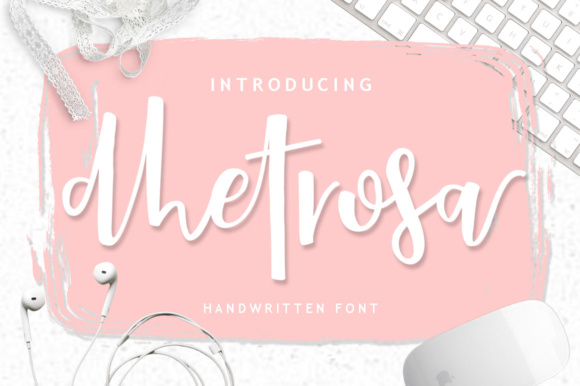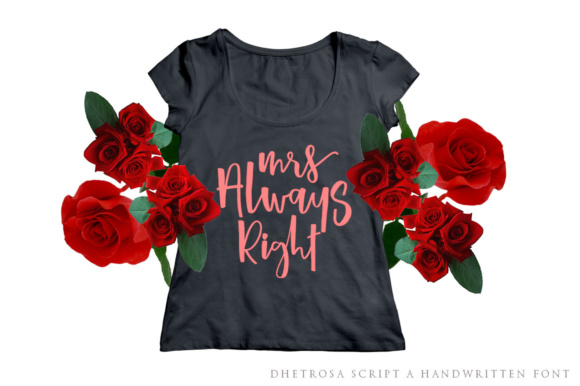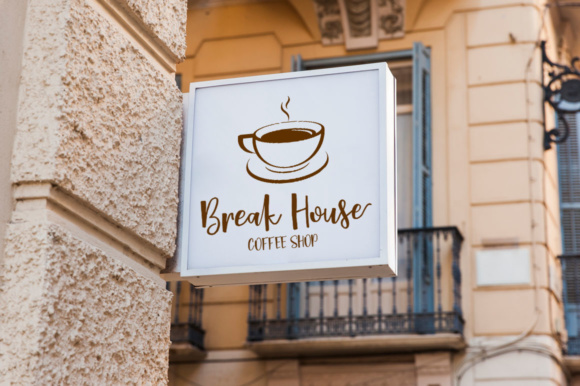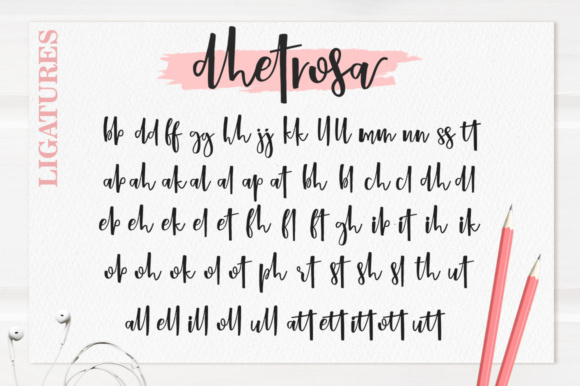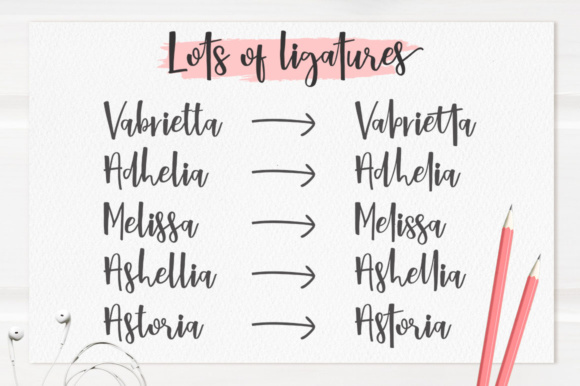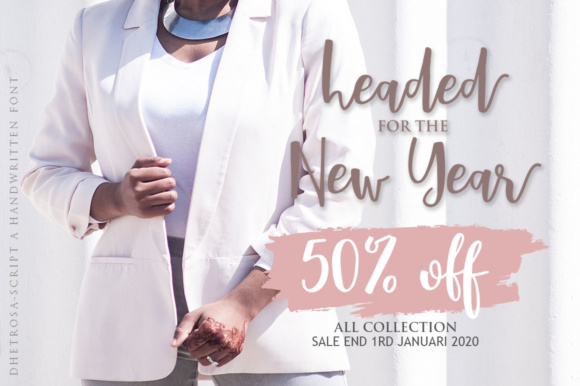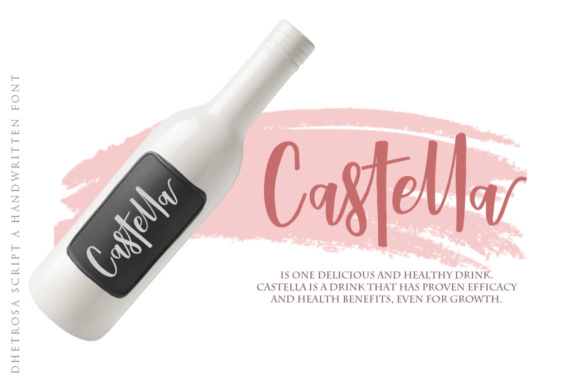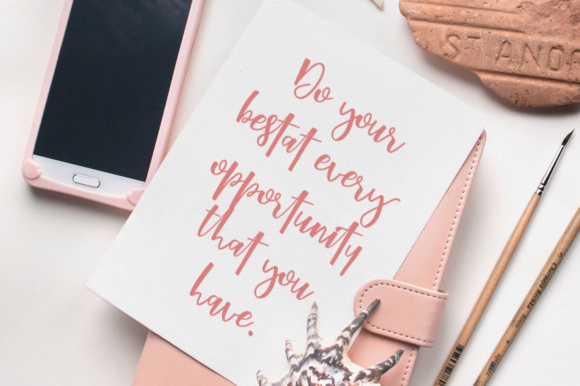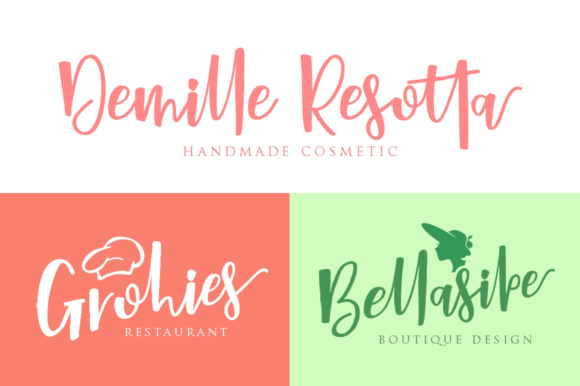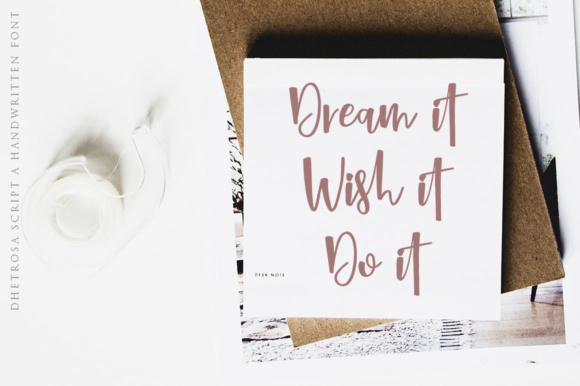
Dhetrosa Script Font
About Dhetrosa Script Font
The Dhetrosa is a brush-and-inked, hand-made script with an irregular style. It includes a lot of ligatures to enhance the desired writing.